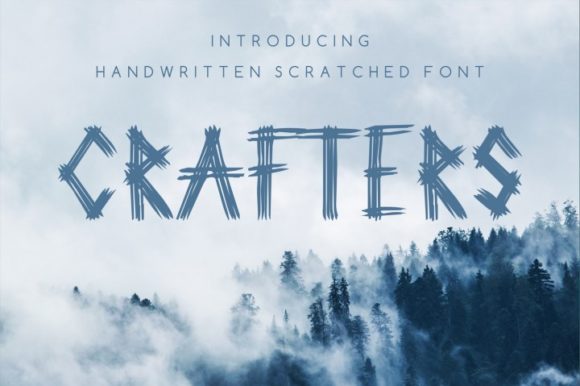
Crafters Font
About Crafters Font
The Crafters is a handwritten scratched font. It’s an all uppercase font which will give your design a striking and unique look.